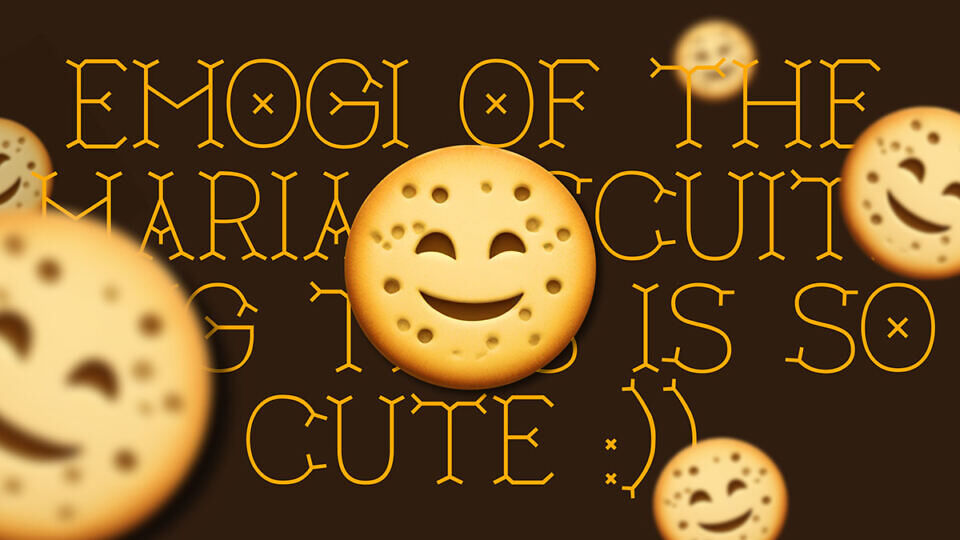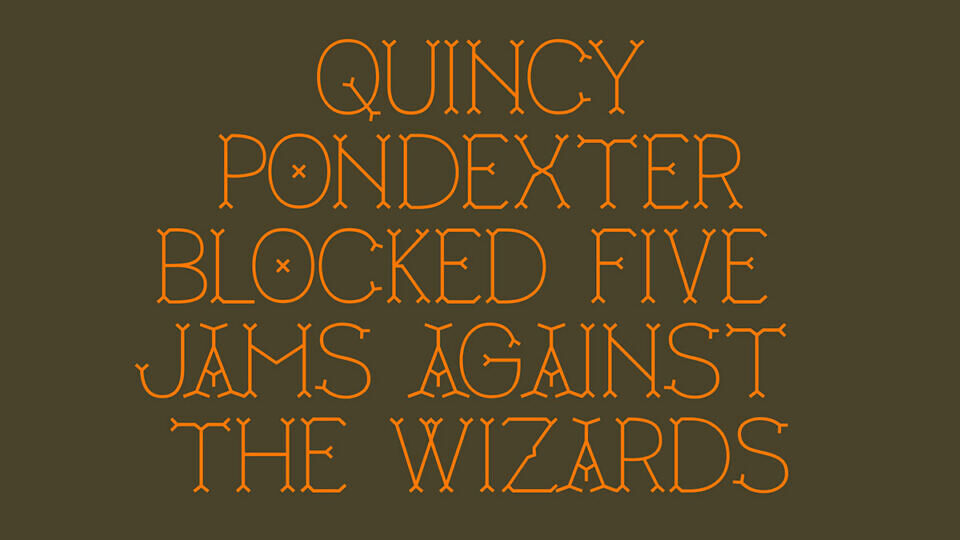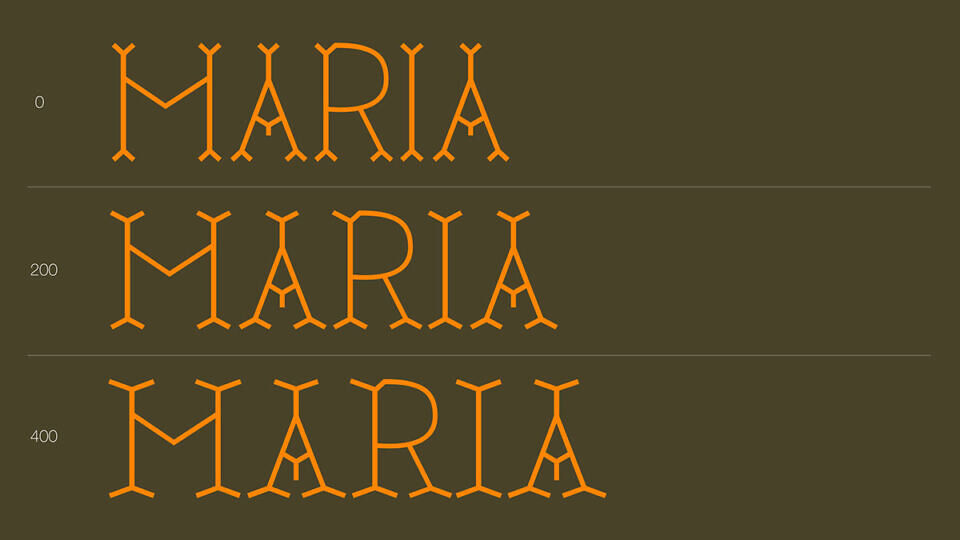
MARIA RM Font
Maria RM is a typeface born from the shapes engraved in the five letters of the iconic Maria biscuit, later expanded into a full alphabet with an experimental and exploratory approach while maintaining its traditional traits.
The standout feature of Maria is its variable-width serifs, which create an almost choreographed movement between characters, making it highly expressive and full of personality.